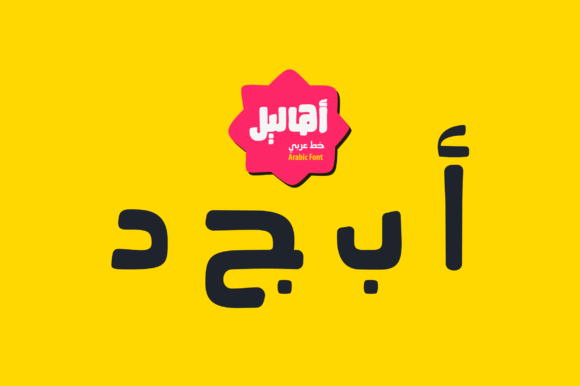
Ahaleel - Arabic for Modern Web Design and Branding
I was working on a new boutique online store for a local artisan who sells handmade jewelry. The client wanted something fresh, eye-catching, and modern—something that would stand out in a crowded market. I knew the typography would play a big role in making the site feel unique and trustworthy. That’s when I came across Ahaleel - Arabic, a display font with a funky and casual style that felt just right for the project.
Ahaleel - Arabic for Bold Website Headers and Hero Sections
Right away, I tested Ahaleel - Arabic in the hero section of the homepage. The font’s funky and casual style immediately caught my attention. Even though the letterforms are spontaneously rendered, they’re based on a solid geometric structure, which gives them a sense of balance and clarity. It’s the kind of font that feels playful yet professional—perfect for a brand that wants to be both approachable and stylish.
I used Ahaleel - Arabic as the main heading for the hero section, pairing it with a clean sans-serif font for the body text. The contrast worked well, creating a visual hierarchy that guided users’ eyes naturally from the headline down to the supporting content. The geometric base of the font also helped maintain readability, even at larger sizes.
Ahaleel - Arabic for Landing Pages and Call-to-Action Areas
When designing the landing page for the product launch, I needed a font that could grab attention without overwhelming the user. Ahaleel - Arabic fit the bill perfectly. Its casual style made the call-to-action buttons feel more inviting, while its geometric foundation ensured that the text remained legible on both desktop and mobile screens.
I experimented with different weights and styles of Ahaleel - Arabic to find the best match for the campaign message. The lightest weight worked well for subtle accents, while the bolder versions were ideal for headlines and promotional banners. I also made sure to test the font on dark and light backgrounds to ensure it performed well in various contexts.
Ahaleel - Arabic for Blog Headers and Digital Branding
For the blog section of the site, I wanted to create a cohesive brand identity that extended beyond the main store. Ahaleel - Arabic was an excellent choice for the blog headers. Its funky and casual style added personality to the content while maintaining a level of professionalism that aligned with the brand’s values.
I paired Ahaleel - Arabic with a simple serif font for the body copy, creating a nice contrast that made the content more engaging. The font’s geometric structure also helped maintain consistency across different sections of the site, reinforcing the brand’s visual identity.
Ahaleel - Arabic for Product Landing Pages and Course Sales Pages
When designing the product landing pages, I needed a font that could convey both creativity and reliability. Ahaleel - Arabic offered the perfect blend of these qualities. Its funky style made the product descriptions feel more dynamic, while its geometric foundation ensured that the text remained clear and easy to read.
I used Ahaleel - Arabic for the main titles and subheadings, ensuring that the key messages stood out. For the body text, I opted for a more neutral sans-serif font to keep the focus on the product itself. This combination helped create a balanced layout that was both visually appealing and user-friendly.
Ahaleel - Arabic for Mobile Optimization and Responsive Layouts
With the increasing importance of mobile design, I made sure to test Ahaleel - Arabic on smaller screens. The font performed well on mobile devices, maintaining its readability and visual appeal even at smaller sizes. I also checked how it looked over image overlays and against dark backgrounds, ensuring it remained legible in all scenarios.
One thing I noticed was that the font’s geometric structure helped it scale well, making it suitable for use in buttons, navigation menus, and other interactive elements. This versatility made Ahaleel - Arabic a valuable asset in my design toolkit.
Ahaleel - Arabic for Font Pairing and Brand Identity
Font pairing is a crucial part of any web design project, and Ahaleel - Arabic offers great flexibility in this regard. I paired it with a clean sans-serif font for body text, creating a strong contrast that enhanced the overall design. For more editorial-style layouts, I considered using a serif font to add a touch of elegance.
I also made sure to check the font’s included styles, webfont availability, and file formats before implementing it on the site. Ensuring that Ahaleel - Arabic was properly licensed for commercial use was important, especially since the site would be used for sales and marketing purposes.
Overall, Ahaleel - Arabic has proven to be a versatile and effective choice for a wide range of web design projects. Whether you’re building a boutique online store, a course sales page, or a creative portfolio, this display font can help elevate your brand’s visual identity and user experience.